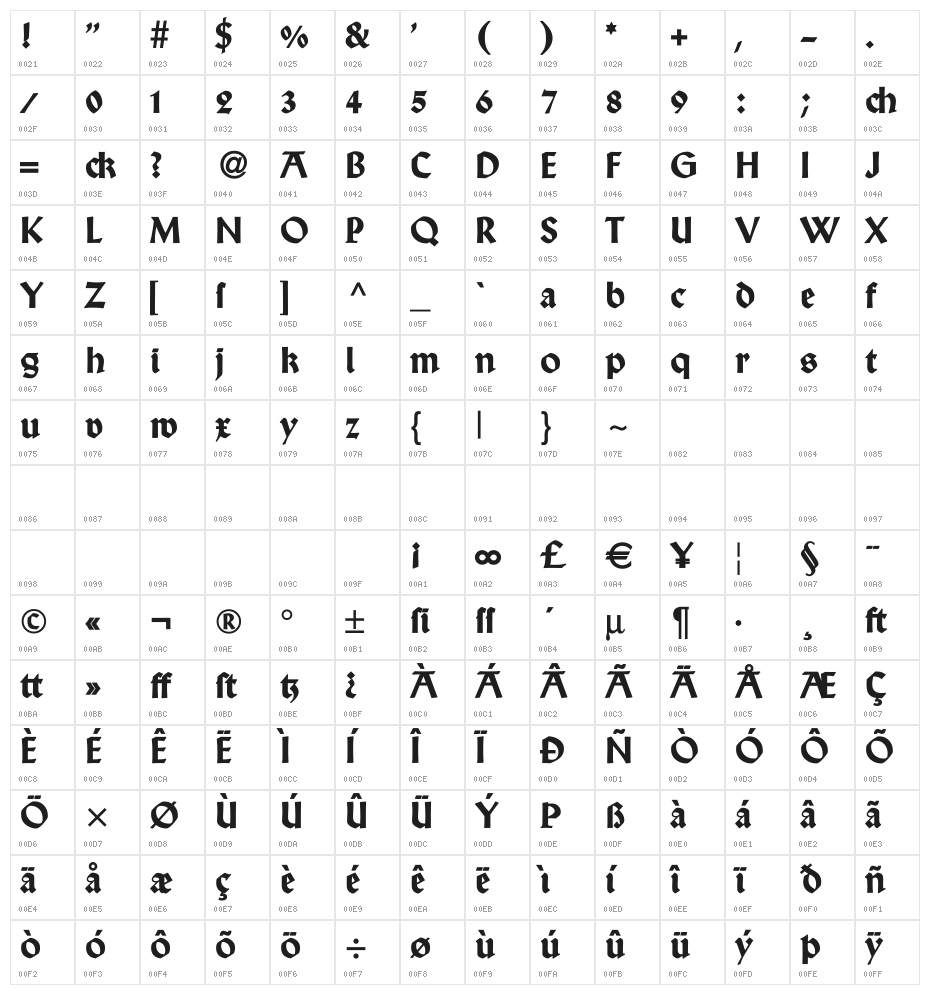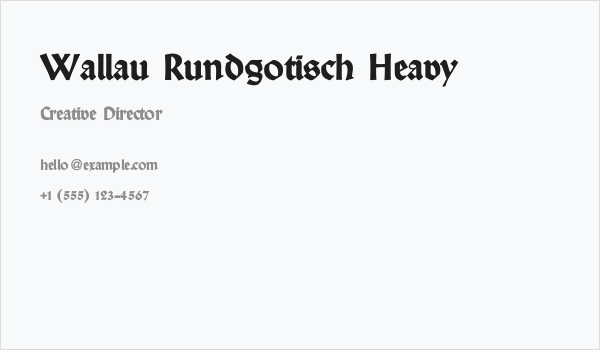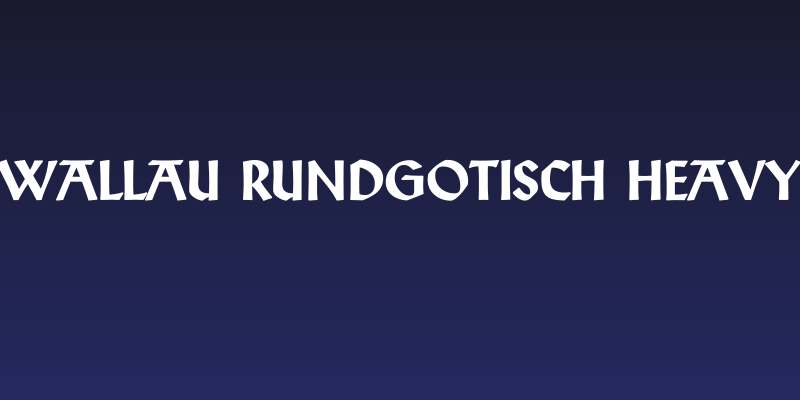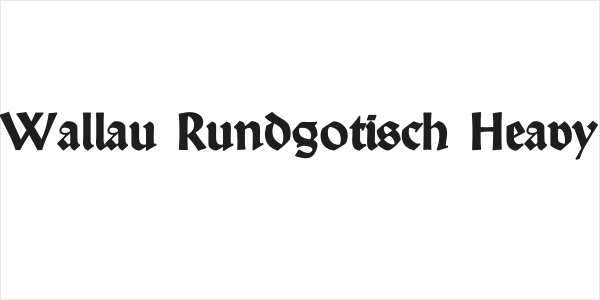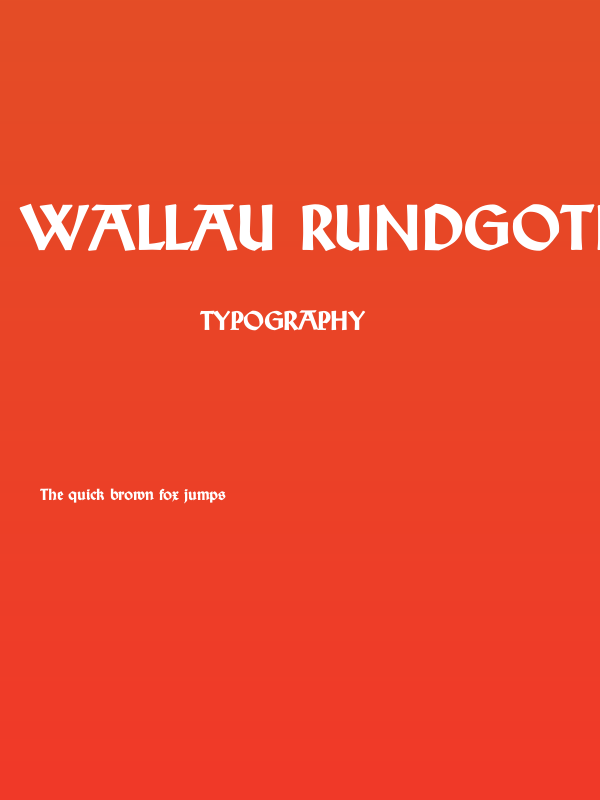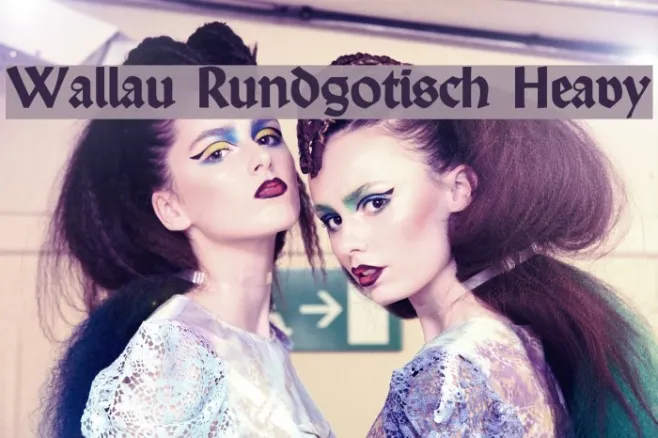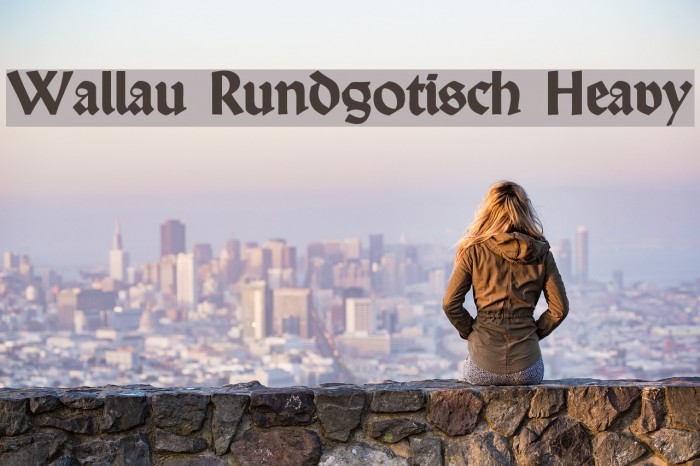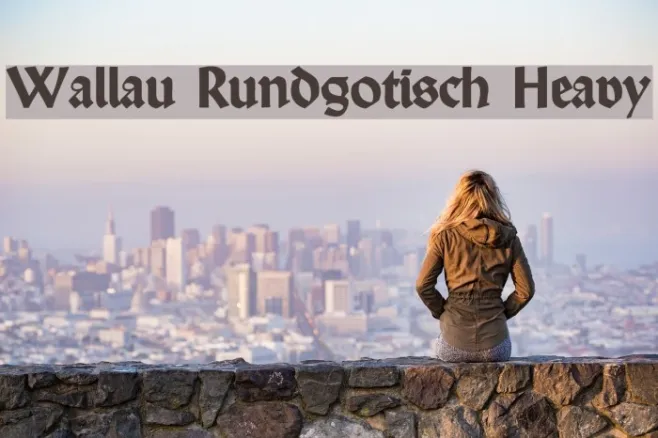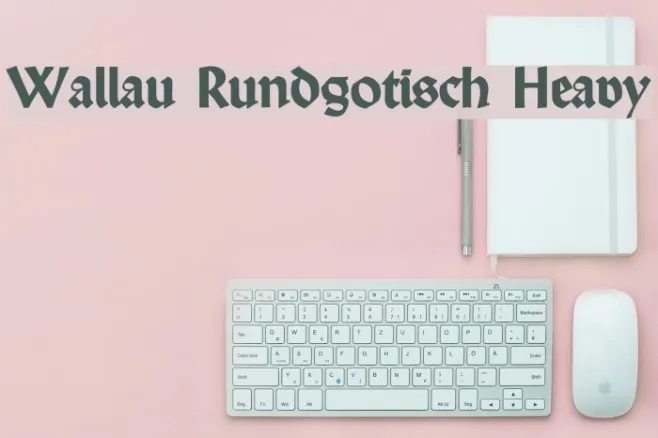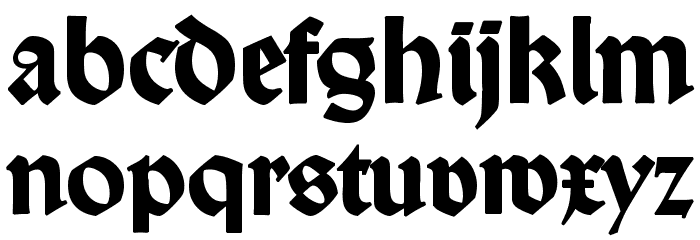
Wallau Rundgotisch Heavy Font
Wallau Rundgotisch Heavy Description
This font features a bold and striking blackletter style, characterized by its heavy strokes and sharp, angular forms. The uppercase letters exhibit a strong presence with their wide, imposing shapes, while the lowercase letters maintain a consistent weight, offering a harmonious balance. The numerals are equally bold, ensuring readability and impact. Special characters are designed with the same attention to detail, integrating seamlessly with the overall aesthetic. This font's distinct style evokes a sense of tradition and history, making it suitable for projects that require a touch of classic elegance.
| Overall Style | Classic |
| Use Case | Logos, Headlines, Certificates |
| Proposed Projects | Ideal for historical documents, certificates, branding for luxury products, or any design needing a traditional and authoritative feel. |